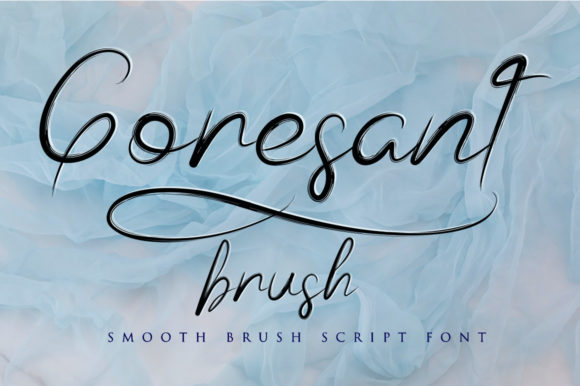
Step into the enchanting world of Goresant Brush Font, a script typeface that captivates the heart with its romantic and sweet allure. Each letter dances along the baseline, creating an enchanting visual symphony that brings your designs to life.
With Goresant Brush Font, your words will leave an indelible mark, whether you're crafting wedding invitations, designing logos, or creating eye-catching social media graphics. Its graceful strokes and elegant curves evoke a sense of timelessness, adding a touch of luxury to every project you undertake.
Goresant Brush Font is not just visually stunning; it's also incredibly versatile. Its readability shines through, ensuring your messages are conveyed with clarity and impact. Whether you're designing for print or digital media, Goresant Brush Font delivers a seamless reading experience, captivating your audience from the very first glance.
Unleash your creativity and let Goresant Brush Font ignite your imagination. Its romantic flair is perfect for creating personalized cards, invitations, and announcements that leave a lasting impression. Add a touch of whimsy to your social media posts, or create captivating logos that exude elegance and sophistication.
Goresant Brush Font is your gateway to a world of boundless design possibilities. Its user-friendly nature makes it accessible to designers of all skill levels, allowing you to create stunning visuals with ease. So why settle for ordinary when you can embrace the extraordinary?